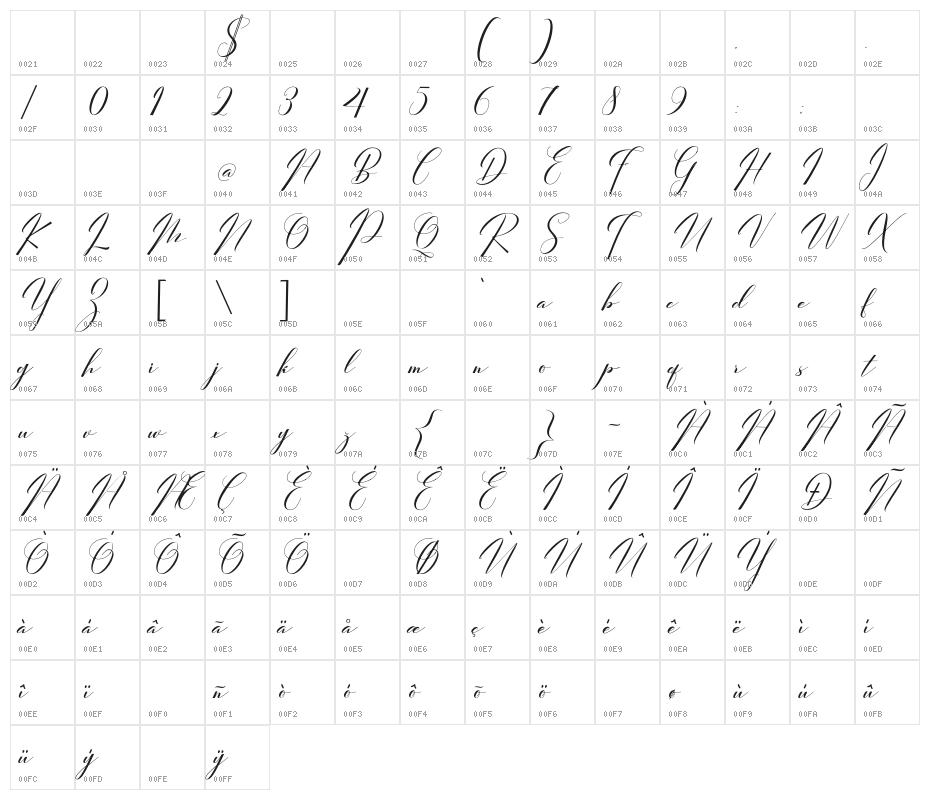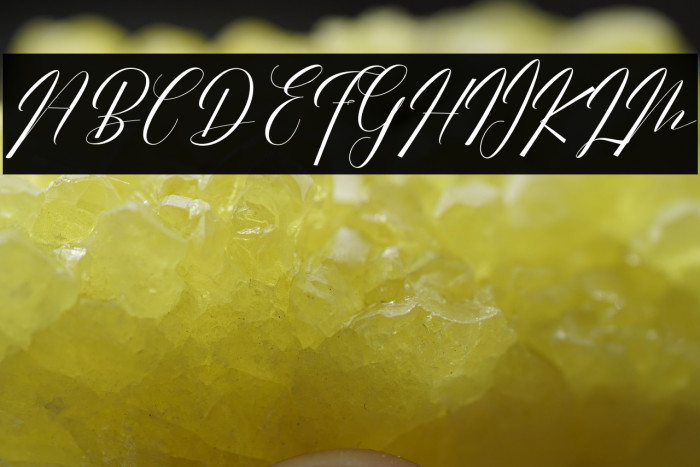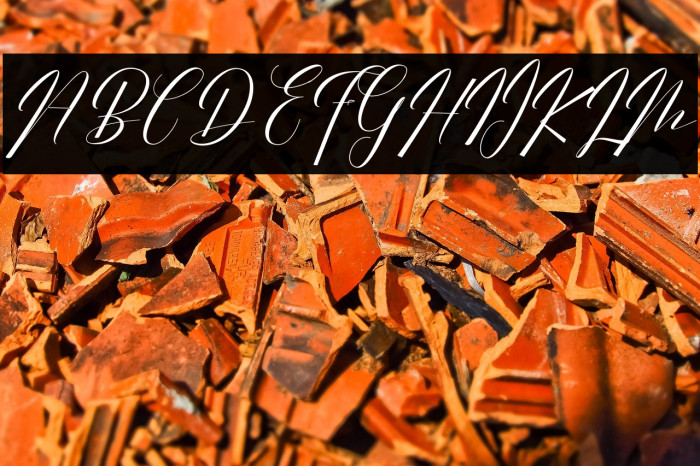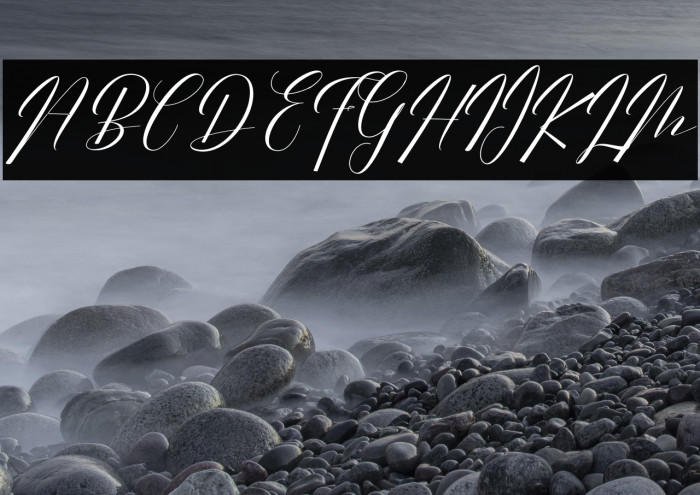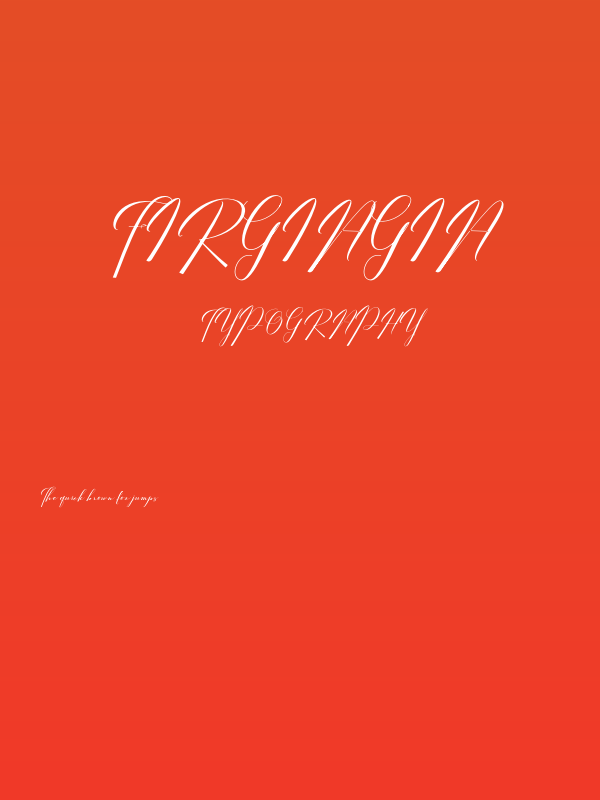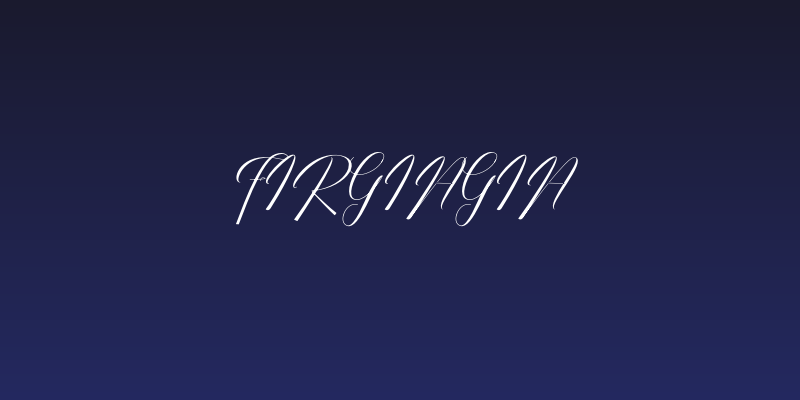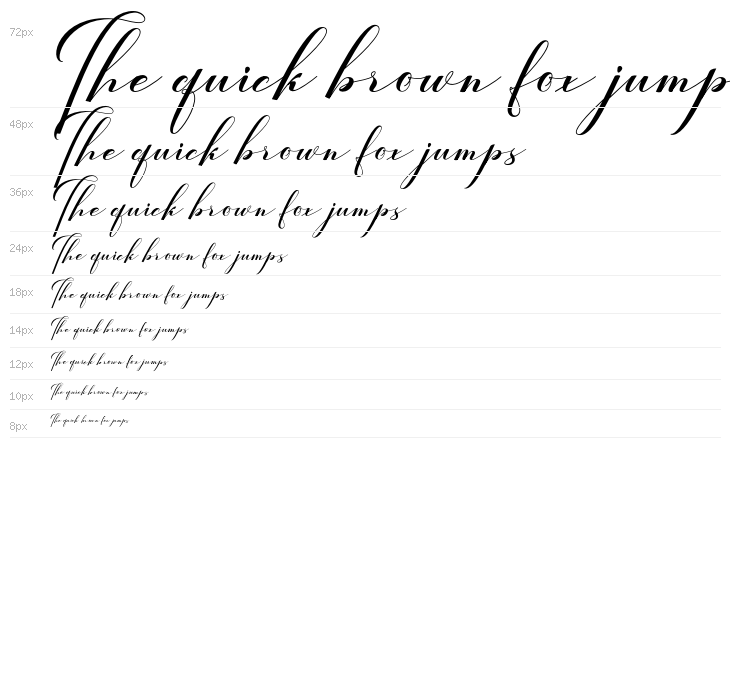
FirgiaGIA Font
FirgiaGIA Description
This elegant script font features a flowing, cursive style with high contrast between thick and thin strokes. The letters are gracefully connected, giving a sense of fluidity and movement. The uppercase letters are ornate and slightly larger than the lowercase, which are more subdued but equally stylish. The numerals and special characters maintain the same sophisticated flair, making the font versatile for various uses. The overall design is reminiscent of traditional calligraphy, yet it maintains a modern touch, making it suitable for both classic and contemporary projects.